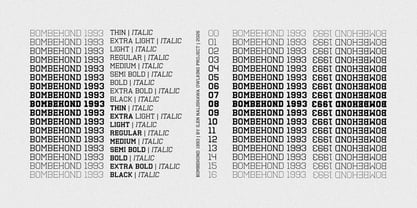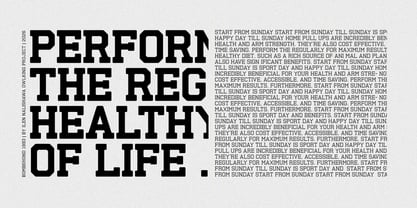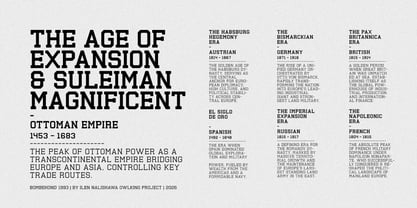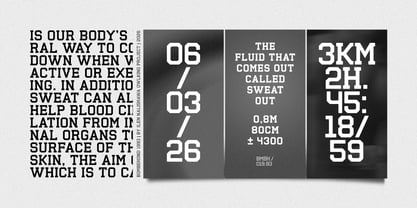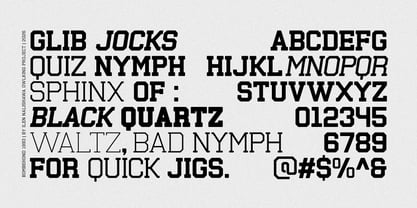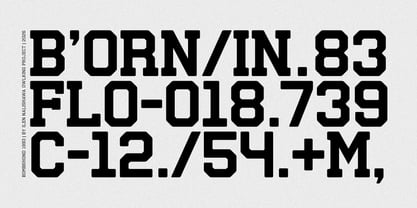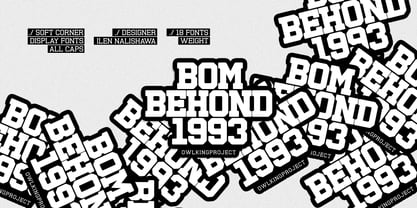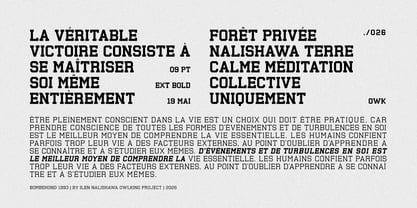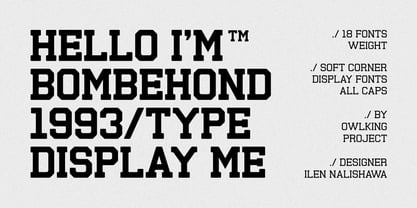
Bombehond 1993
by Owl king project
The Bombehond 1993 Font Family was designed by Darhilen and published by Owl king project. Bombehond 1993 contains 18 styles and family package options. More about this family
Bombehond 1993 is a soft cornered, all-caps display typeface designed to bridge classic heritage with modern retro design trends, Unlike traditional sharp slab serifs, Bombehond 1993 features rounded / soft corners that give it a friendly yet powerful aesthetic. Created by Owlking Project, this extensive family comes equipped with 18 font weights (ranging from Thin to Black, complete with matching Italics), giving you total typographic control.
Designers: Darhilen Darhilen
Foundry: Owl king project